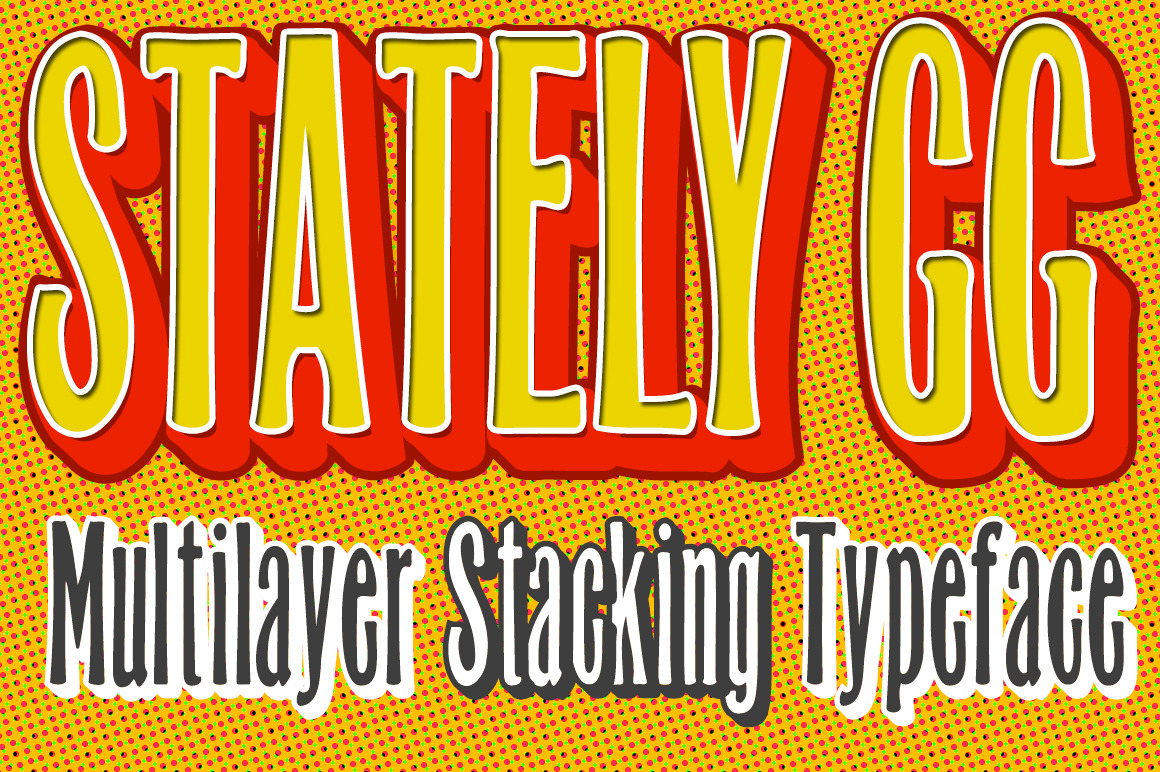
Stately GG Stacking Typeface
quaint- adj. /kweɪnt/ quaint·er, quaint·est.
- having an old-fashioned attractiveness or charm; oddly picturesque: a quaint old house.
- strange, peculiar, or unusual in an interesting, pleasing, or amusing way: a quaint sense of humor.
- skillfully or cleverly made.
- (obsolete) wise; skilled.
Maintaining simultaneous shades of whimsy and versatility is no simple feat, but the meticulously constructed Stately Gothic accomplishes just that, elegantly.
Stately Gothic is a redrawn version of Grit Gothic. The strong vertical character of this stacking/layered typeface make it an ideal solution for use where legibility matters most: posters, logos, book and album covers, and so on. It is part of Grit History Series B along with Heirloom Artcraft, Worn Gothic, Grit Sans, and Grit Gothic.